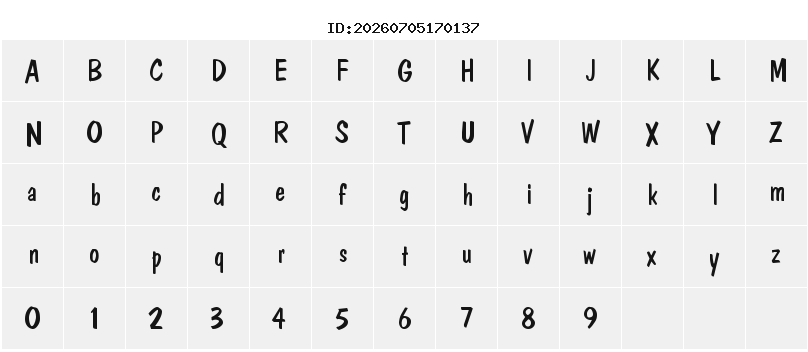
Dominican Preview
• Font Name: Dominican
• Font ID: Altsys Fontographer 3.5 Dominican Regular
• Full Font Name: Dominican Regular
• Version: Altsys Fontographer 3.5 2/8/93
• PostScript Name: Dominican
• Character Count: 167
About Dominican.ttf
Dominican.ttf is a modern, elegant sans-serif font designed for ultimate readability and visual harmony. Perfect for branding, headlines, web design, and print materials.